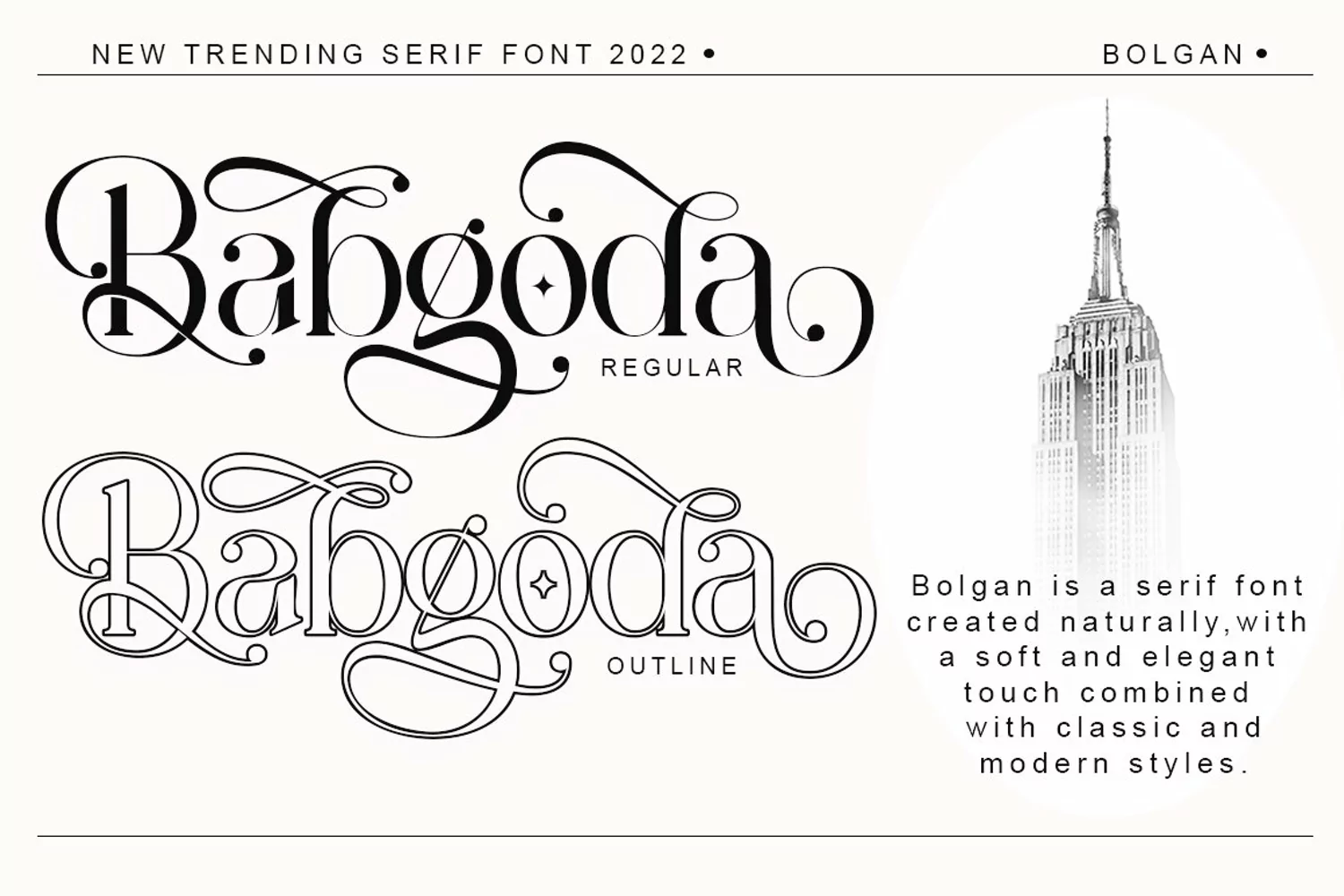
Introducing the new Glittering Serif Ligatures!!
Bolgan is an elegant and classy serif typeface – It is modern and nostalgic and is perfect for logos, magazines, social media. It's matched and ready to be used together for your next design! For those of you who need a touch of elegance, style, classy, chic and modernity to your designs, this font was created for you!
Bolgan is built with OpenType features and includes 200+ ligatures, alterbates, numbers, punctuation and also supports other languages.